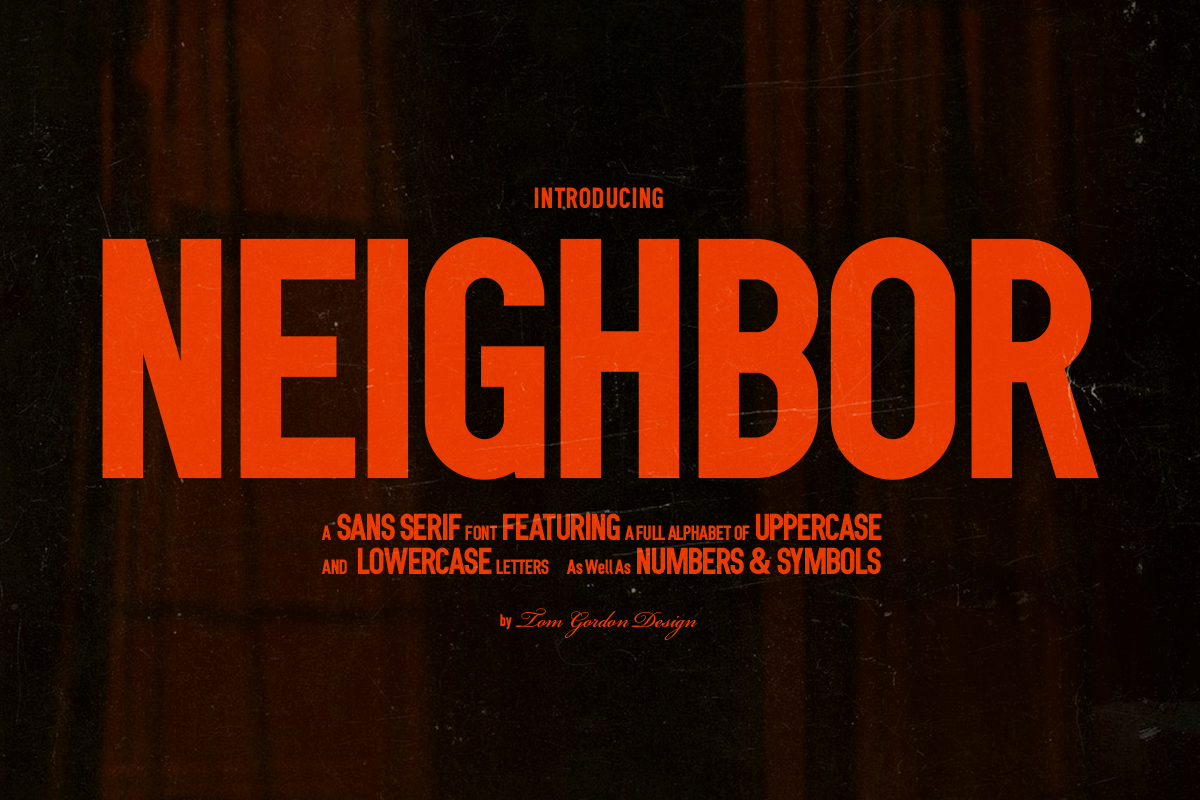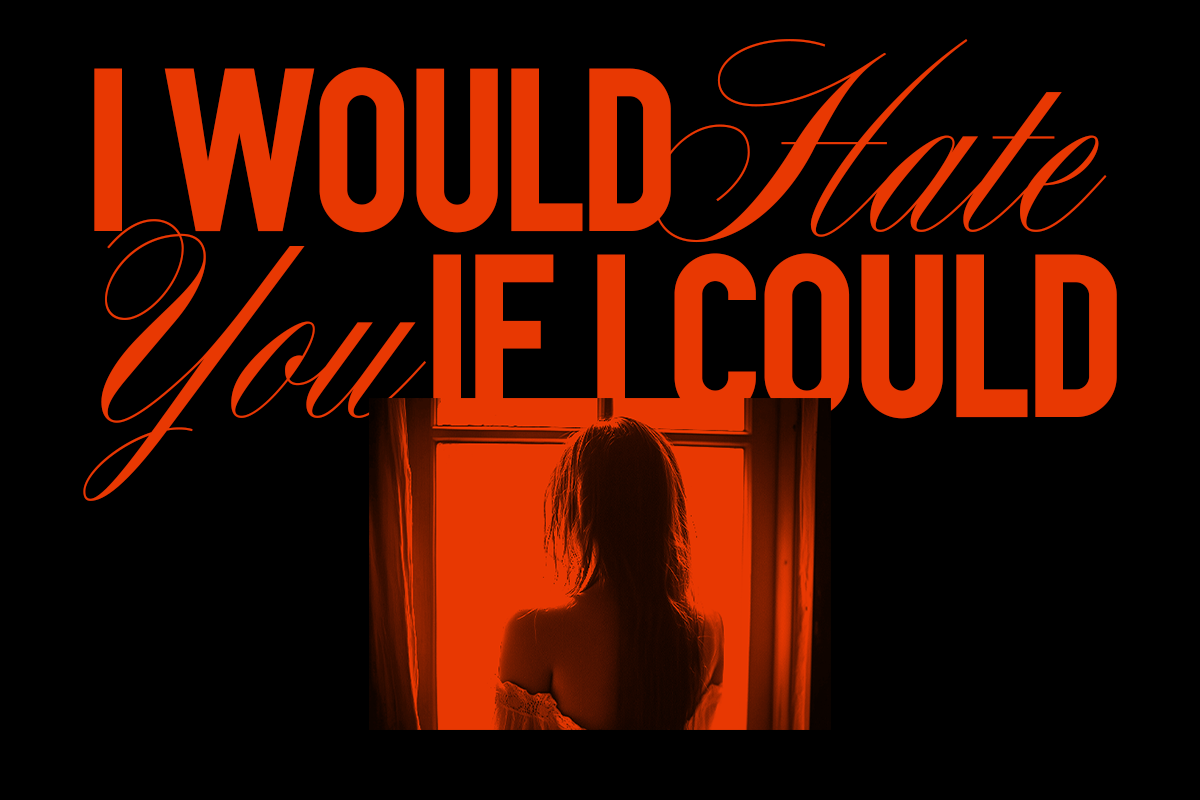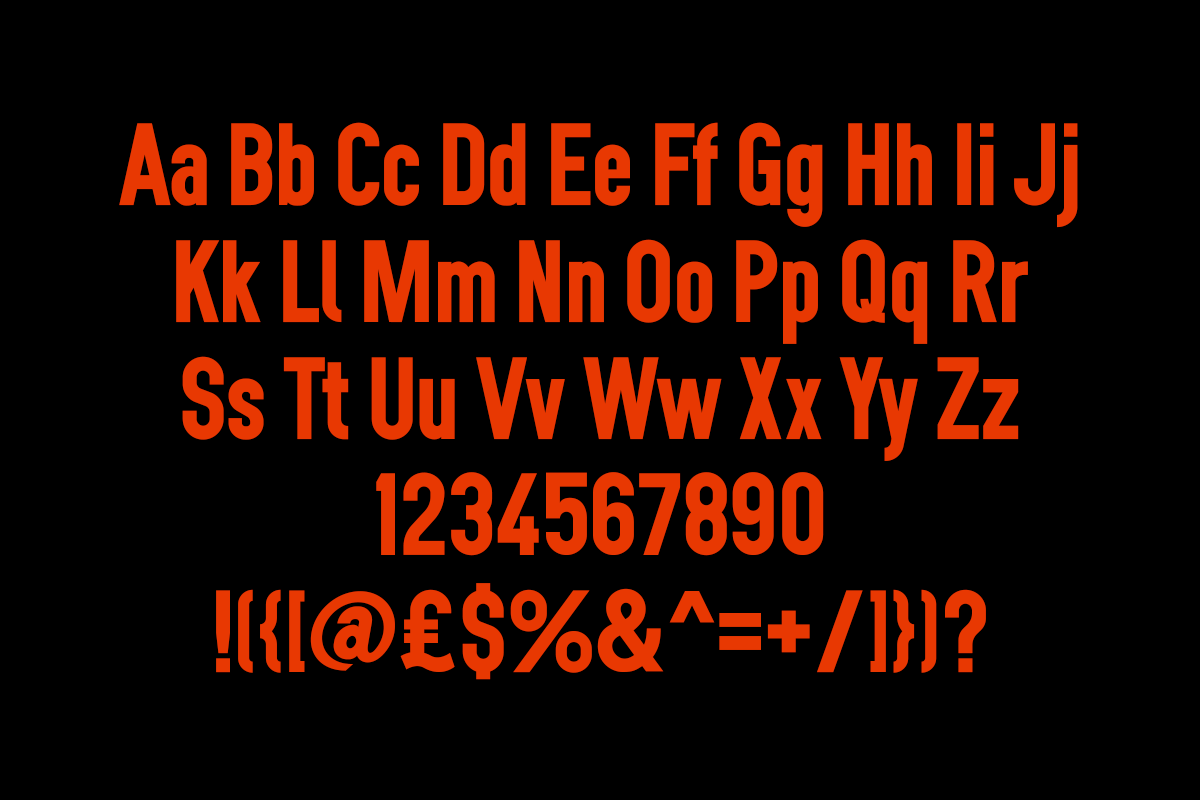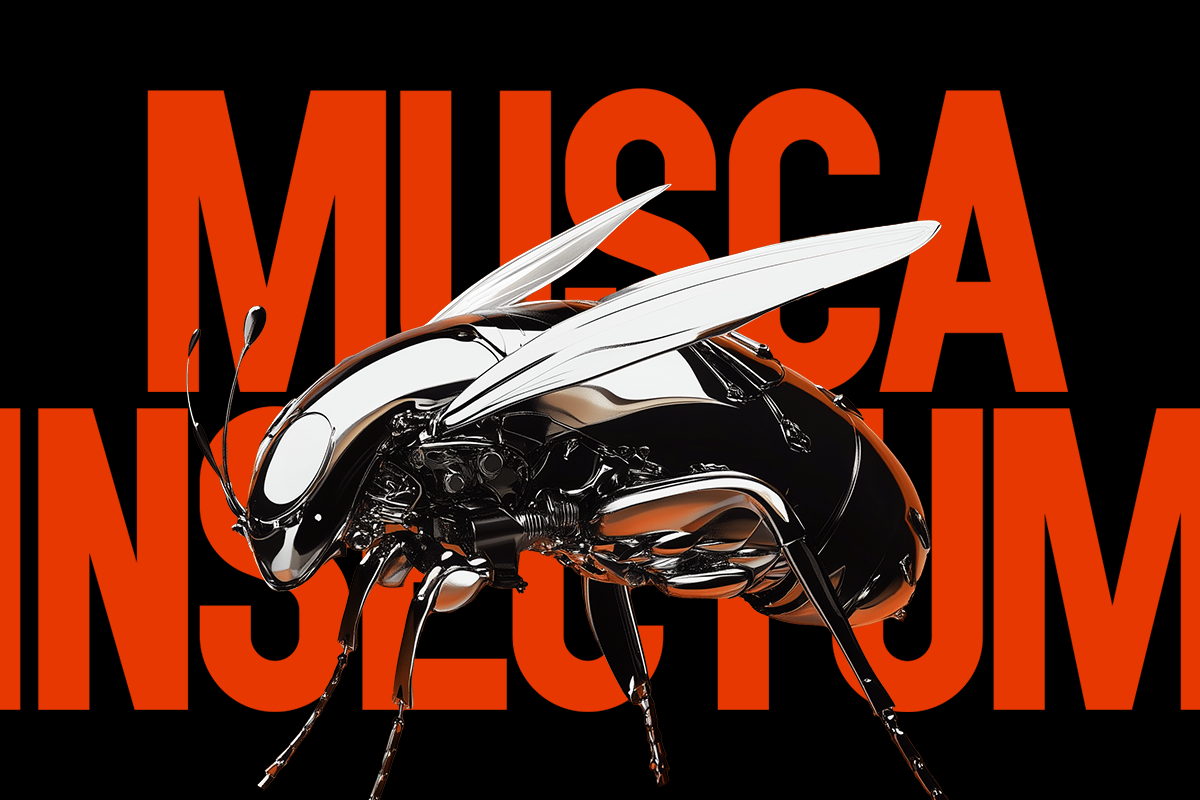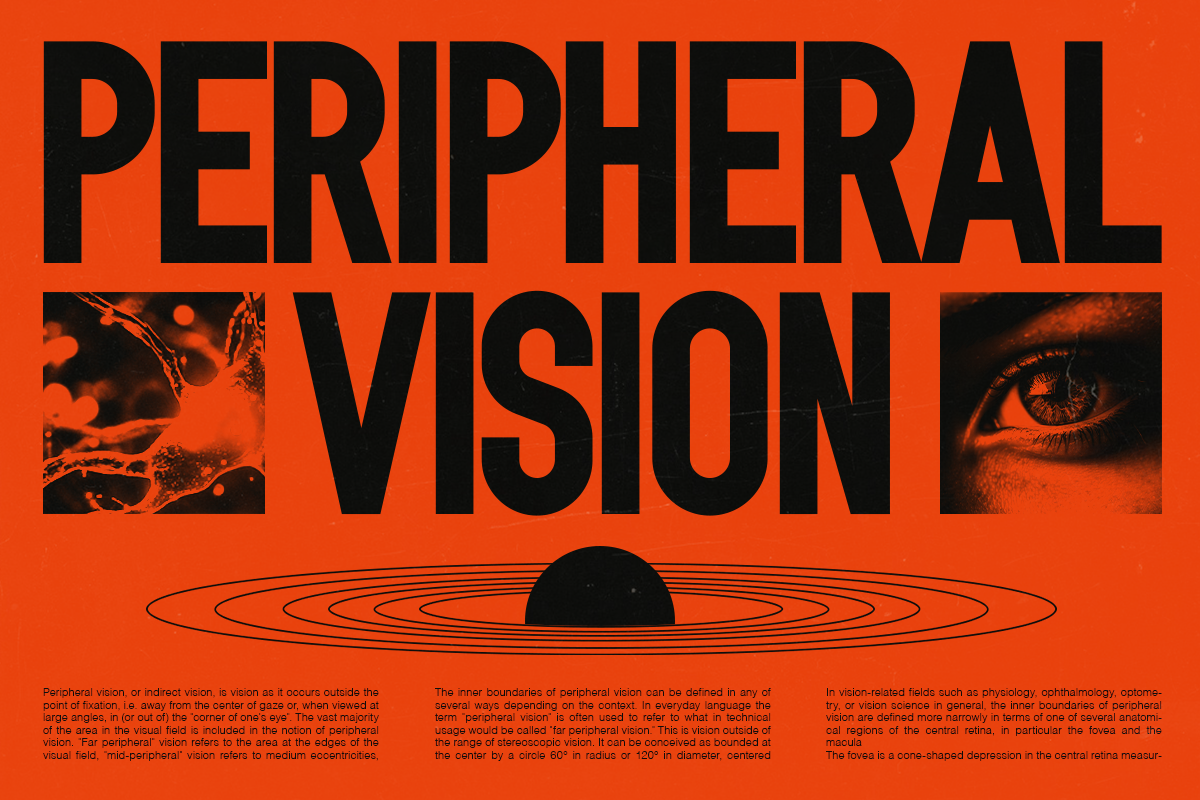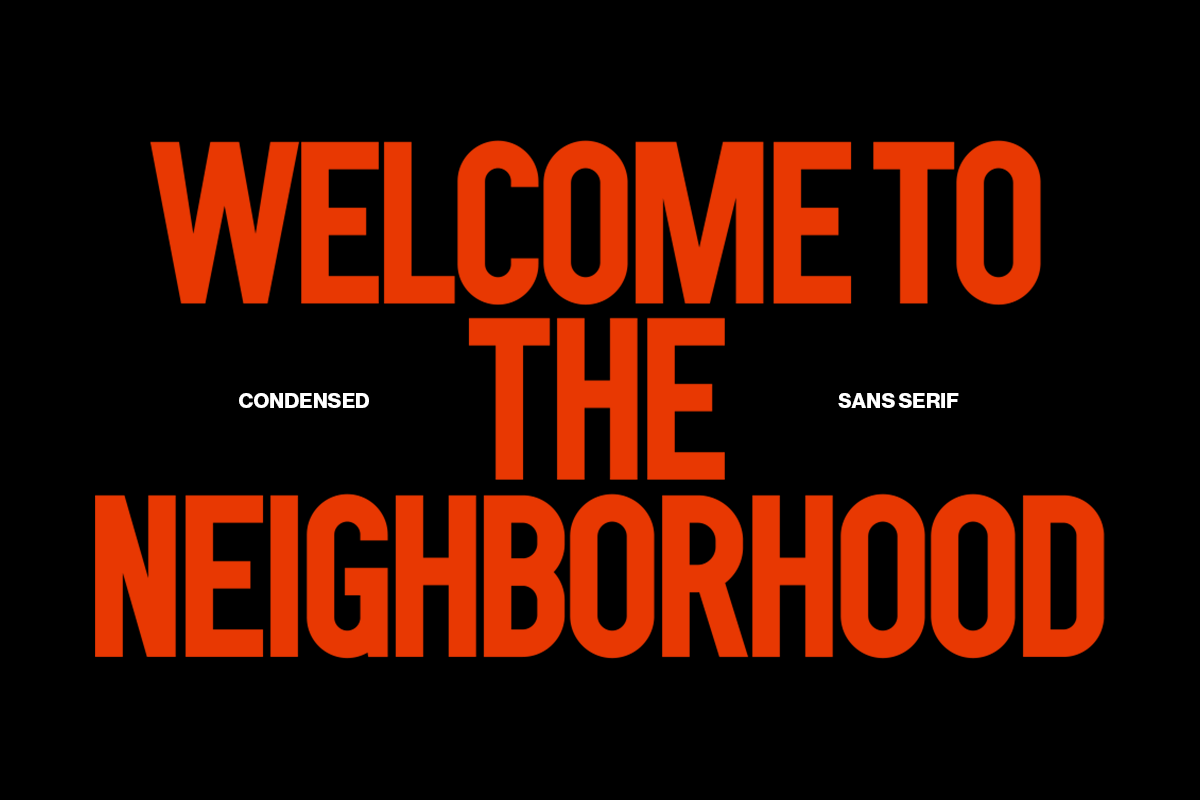
Neighbor Condensed Sans Serif Font
Neighbor is a suave and sophisticated condensed san-serif font that's absolutely perfect for those bold title page style designs. With a tasteful weight to height ratio this font makes a big impact whilst feeling controlled and classic.
As a merchandise designer of 15 years I wanted to create another typeface that could easily be used on high-end clothing designs as well as large print applications such as posters and album packaging. This font is really a catch-all option as it would be just as at home on label design, book covers, tote bags, websites, logos, magazines.
This font includes:
Uppercase Alphabet
Lowercase Alphabet
Essential symbols and glyphs